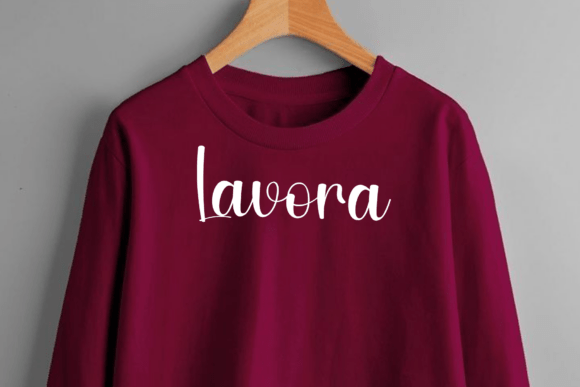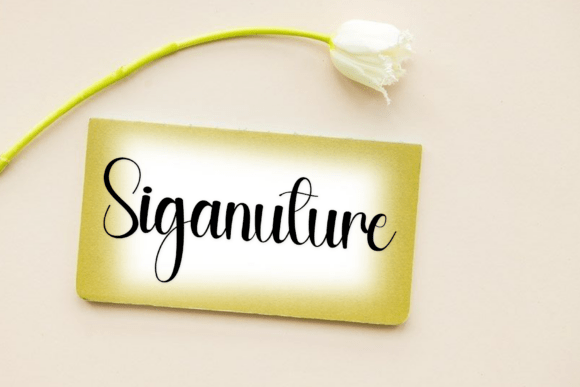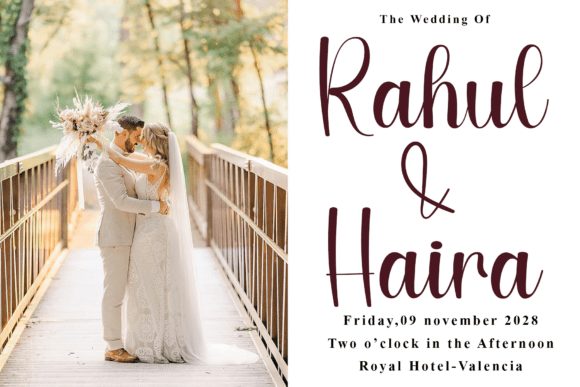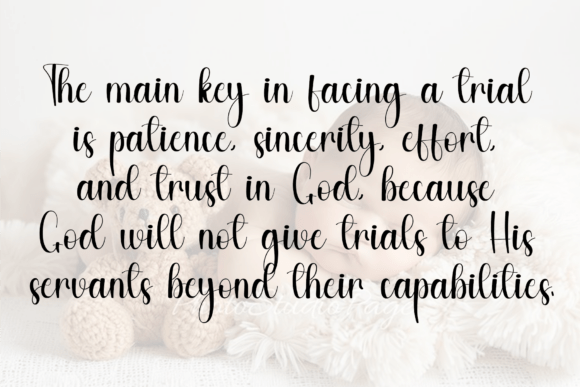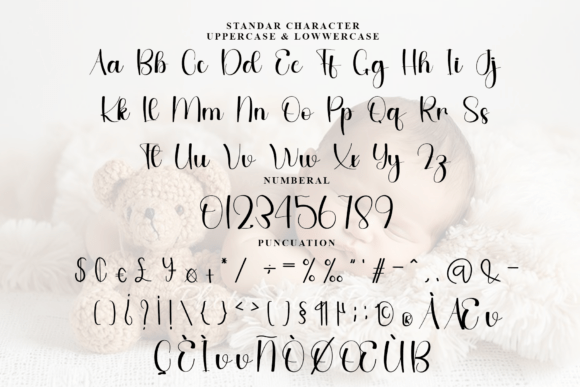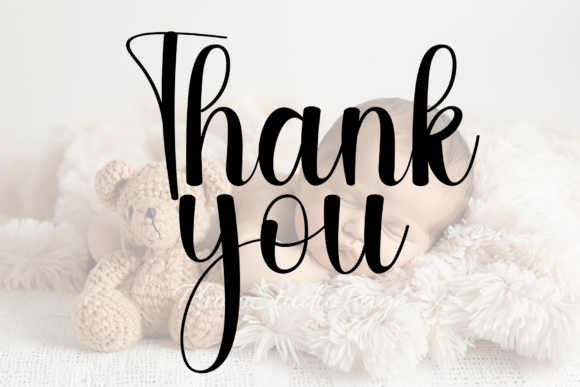
Discover the Charm of Babylove Font
As a designer, you’ve probably found yourself stuck in a creative rut, desperately searching for the perfect font to elevate your latest project. You scroll through your favorite font libraries, but nothing seems to capture the essence of your vision. That’s when you stumble upon it – the Babylove Font, a stylish handwritten font that’s as friendly as it is bold.
Babylove Font is part of the “Unique and Professional” collection, designed to add a touch of organic charm to your designs. Its thick, solid strokes and distinct “bouncy” rhythm make it perfect for outdoor lifestyle branding, organic product packaging, and travel-themed graphics. As a designer, you’ll appreciate the value of this versatile font, which can add a handmade look to even the most complex designs.
Babylove Font Key Features
• Unique Characteristics: Includes hand-drawn illustrations and playful, cursive script
Babylove Font Review
As a designer, I was excited to dive into the Babylove Font and see what it had to offer. Here’s my honest review.
• Cute and playful feel – perfect for kids’ products, nursery decor, or family-related branding.
• Easy to read and understand, even at smaller font sizes.
• Good range of weights and styles to choose from, allowing for some flexibility in design.
• Looks great on a variety of backgrounds and color schemes.
• Limited to a specific niche or theme, which may not be suitable for all design projects.
• Some of the more elaborate characters may not be as well-designed or consistent in style.
• Not as versatile or widely applicable as some other fonts on the market.
Overall, I think the Babylove Font is a fun and engaging choice for projects that fit its theme. While it may not be the best fit for every design project, it’s a great option when you need something cute and playful.
Use the Babylove Font for creating cute and playful designs, such as:
• Children’s party invitations
• Baby shower decorations
• Kids’ clothing labels
Alternatives to Babylove Font for Designers
Creamy Script
Creamy Script is a beautiful, elegant script font ideal for invitations, wedding designs, and other special occasions. It has a soft, gentle feel that is reminiscent of handwritten text. When to use: For elegant, sophisticated designs that require a touch of whimsy.
Compared to Babylove Font, Creamy Script has a more refined and polished feel, making it suitable for high-end designs. While Babylove Font is more playful and fun, Creamy Script is more sophisticated and elegant.
Great Vibes is a modern, cursive script font that is perfect for designs that require a touch of fun and playfulness. It has a relaxed, casual feel that is great for social media graphics, posters, and other creative projects. When to use: For designs that require a carefree, spontaneous feel.
Compared to Babylove Font, Great Vibes has a more relaxed and casual feel, making it suitable for designs that require a laid-back vibe. While Babylove Font is more whimsical and romantic, Great Vibes is more modern and playful.
Carolyna Pro is a elegant, modern script font that is perfect for designs that require a touch of sophistication and elegance. It has a refined, polished feel that is great for luxury brands, high-end products, and other premium designs. When to use: For designs that require a high-end, luxurious feel.
Compared to Babylove Font, Carolyna Pro has a more refined and sophisticated feel, making it suitable for high-end designs. While Babylove Font is more playful and fun, Carolyna Pro is more elegant and luxurious.